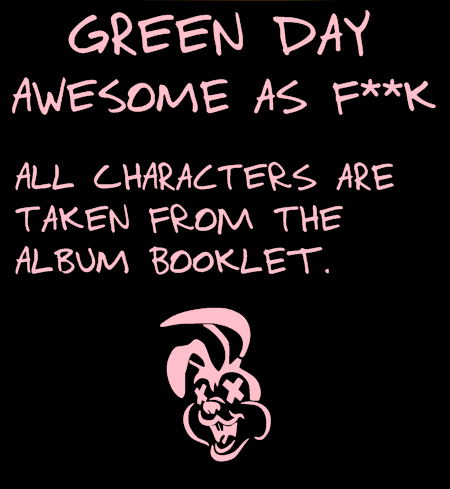
Font created by me inspired by Awesome As F**k live album by Green Day. Also used in 21st Century Breakdown booklet lyrics. All characters are taken from the album booklet, promo videos, DVD, posters and etc. |